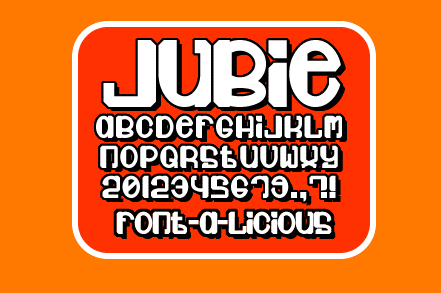
Jubie
Everyone is in the swing music craze. I used to listen to swing in college and everyone used to make jokes. Ha ha, whatever. I know I'm cool. What have you learned from me today? That nothing is cool unless everyone likes it. Swing music doesn't bother me since its trendy now, but it is annoying to watch people pretend to swing dance when Jump, Jive, and Wail comes on at the bar. This font is the cummulation of the Roaring Twenties and the the Nineties. Have at 'er. I have vented through this font and I feel better!